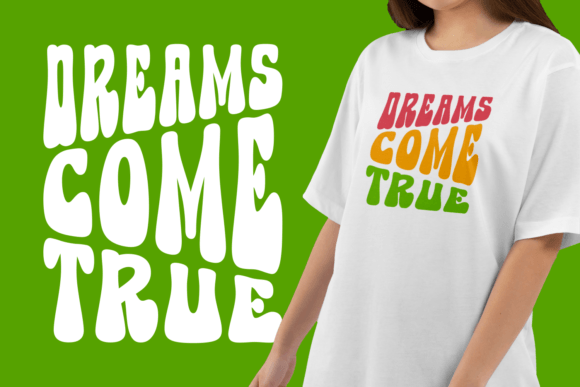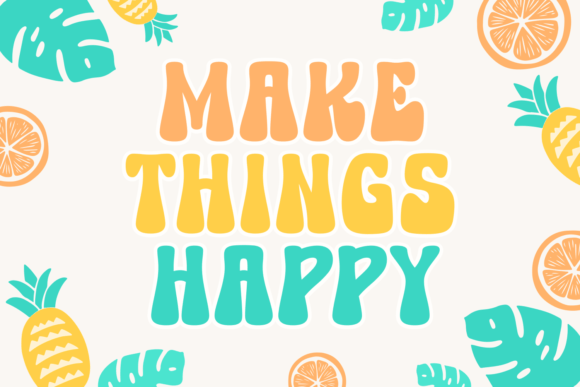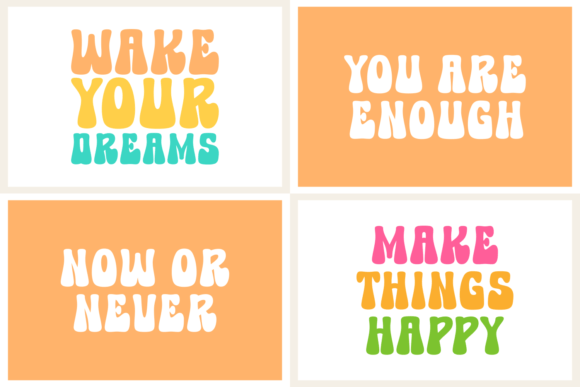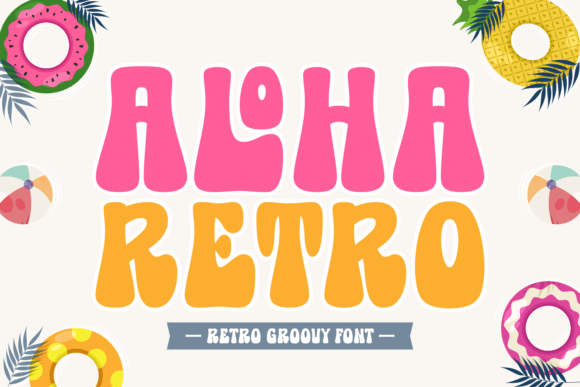
Introduction to Aloha Retro Font
Aloha Retro is a versatile, stylish, and playful retro display font perfect for a wide spectrum of applications such as greeting cards, headlines, and many more.